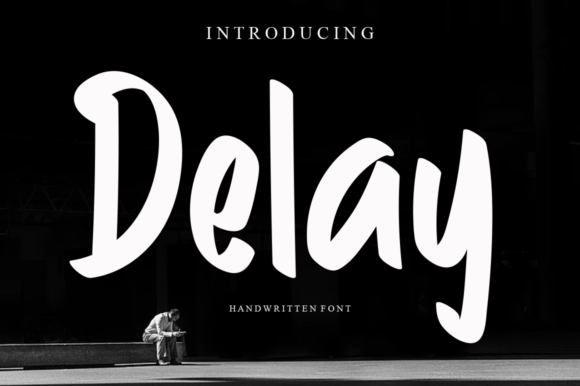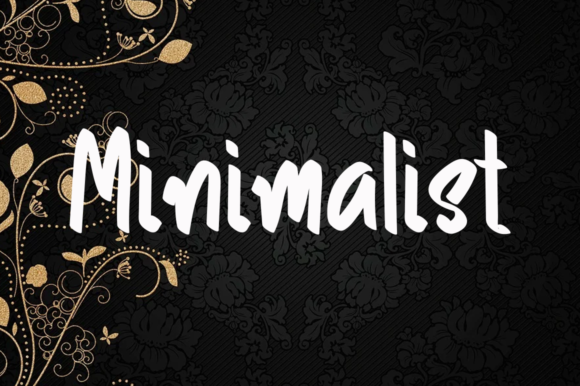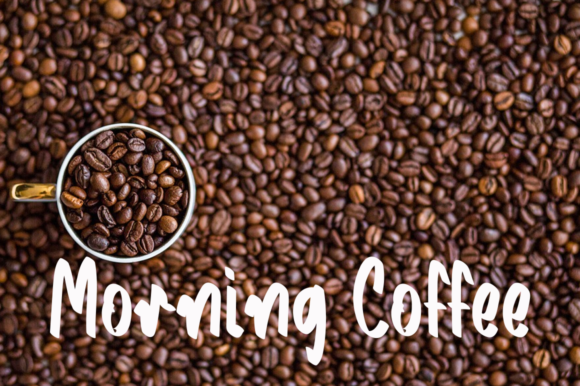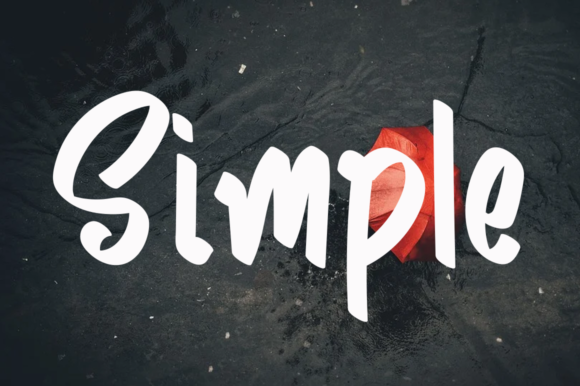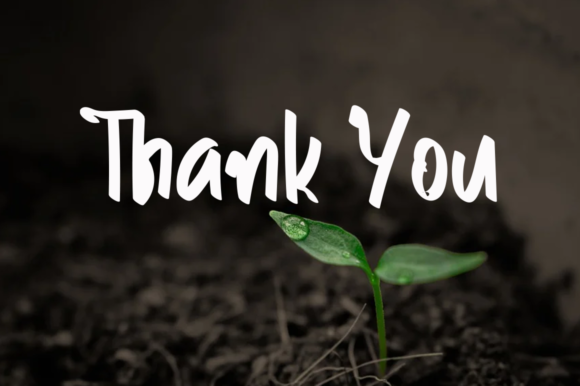
Delay Font
About Delay Font
Delay is a dainty, original and cursive handwritten font. This soft font will look great on any design idea. This will add a fun and romantic touch to any of your projects!